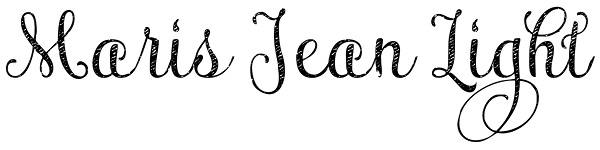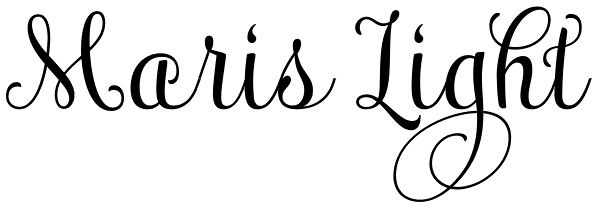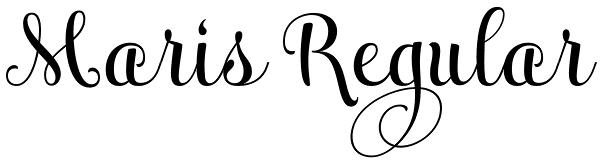
Maris
Maris is a rich, elegant script, subtly characterized by a whimsical handwritten calligraphy. The family is composed of six different weights, each one bolder than the last but all equally as filling. The lighter weights move delicately through each...